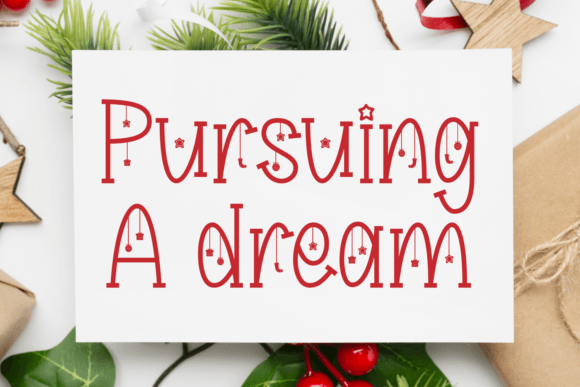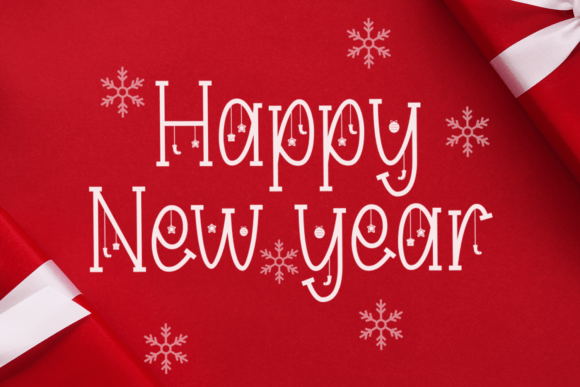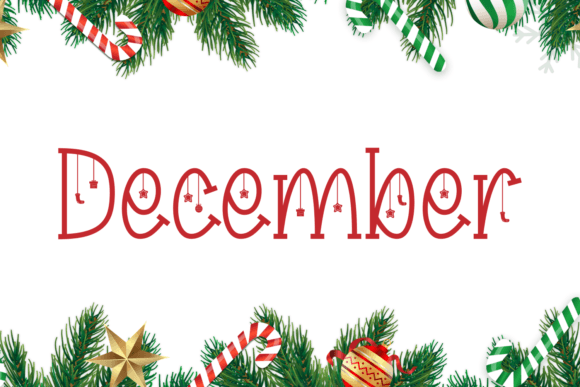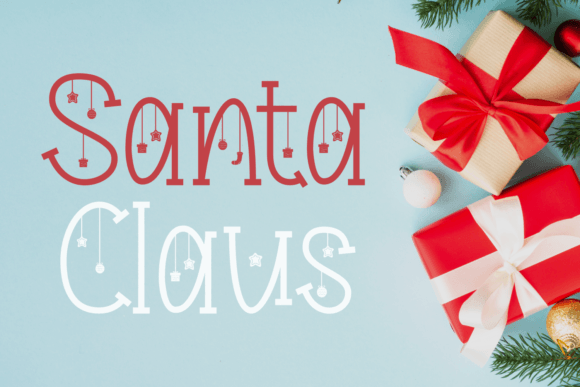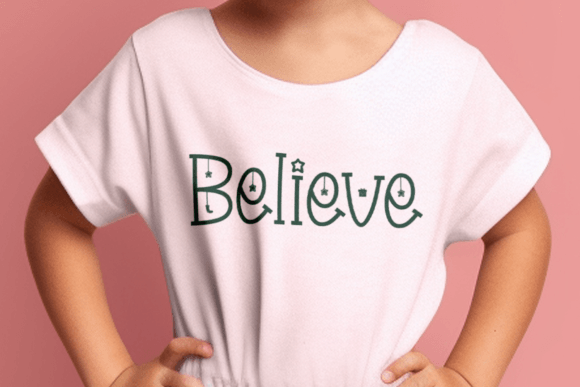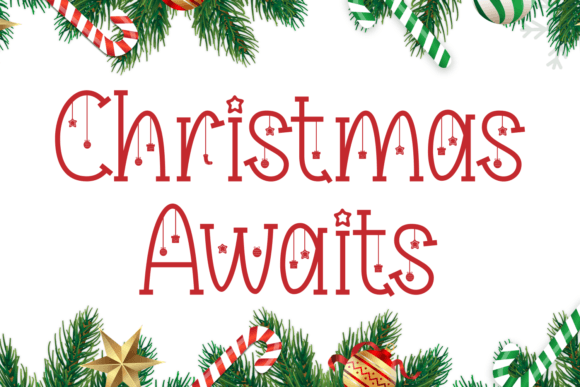
Christmas Awaits Font: A Festive Holiday Typeface to Elevate Your Designs
As the holiday season approaches, designers and crafters are on the lookout for the perfect typography to add a touch of festive cheer to their creations. Look no further than Christmas Awaits Font, a charming and whimsical typeface that’s sure to bring the joy and anticipation of Christmas to your designs.
What is Christmas Awaits Font?
Christmas Awaits Font is a unique and festive holiday typeface that’s adorned with twinkling stars, charming socks, and delightful gifts hanging from each letter. This beautiful font is perfect for adding a touch of holiday magic to your cards, posters, and seasonal creations. Whether you’re designing for personal or commercial use, Christmas Awaits Font is sure to make your projects stand out.
Key Features of Christmas Awaits Font
- Festive and Whimsical Design: Christmas Awaits Font features a charming and playful design that’s perfect for the holiday season.
- Twinkling Stars and Gifts: Each letter is adorned with twinkling stars and delightful gifts, adding a touch of magic to your designs.
- Charming Socks: The font also features charming socks, adding a playful touch to your creations.
- Perfect for Holiday Designs: Christmas Awaits Font is perfect for adding a touch of holiday cheer to your cards, posters, and seasonal creations.
Uses for Christmas Awaits Font
Christmas Awaits Font is a versatile typeface that can be used for a variety of design projects, including:
- Holiday Cards: Add a touch of festive cheer to your holiday cards with Christmas Awaits Font.
- Posters and Flyers: Use Christmas Awaits Font to create eye-catching posters and flyers for your holiday events.
- Seasonal Crafts: Add a touch of holiday magic to your seasonal crafts, such as gift tags, garlands, and decorations.
- Social Media Graphics: Use Christmas Awaits Font to create festive social media graphics that are sure to delight your followers.
Tips for Using Christmas Awaits Font
Here are a few tips for using Christmas Awaits Font in your designs:
- Pair with Other Festive Fonts: Pair Christmas Awaits Font with other festive fonts to create a unique and eye-catching design.
- Use Bright and Bold Colors: Use bright and bold colors to match the festive and playful design of Christmas Awaits Font.
- Add Holiday-Themed Graphics: Add holiday-themed graphics, such as snowflakes, holly, and mistletoe, to enhance your design.
Christmas Awaits Font is a beautiful and festive holiday typeface that’s perfect for adding a touch of holiday cheer to your designs. With its charming and whimsical design, twinkling stars, and delightful gifts, this font is sure to bring the joy and anticipation of Christmas to your projects. Whether you’re a designer or crafter, Christmas Awaits Font is a must-have for your holiday design projects.